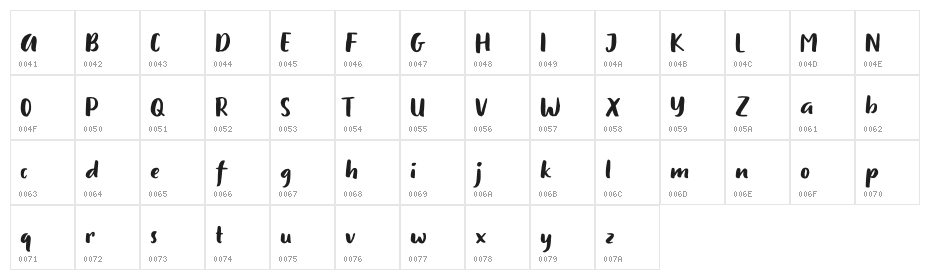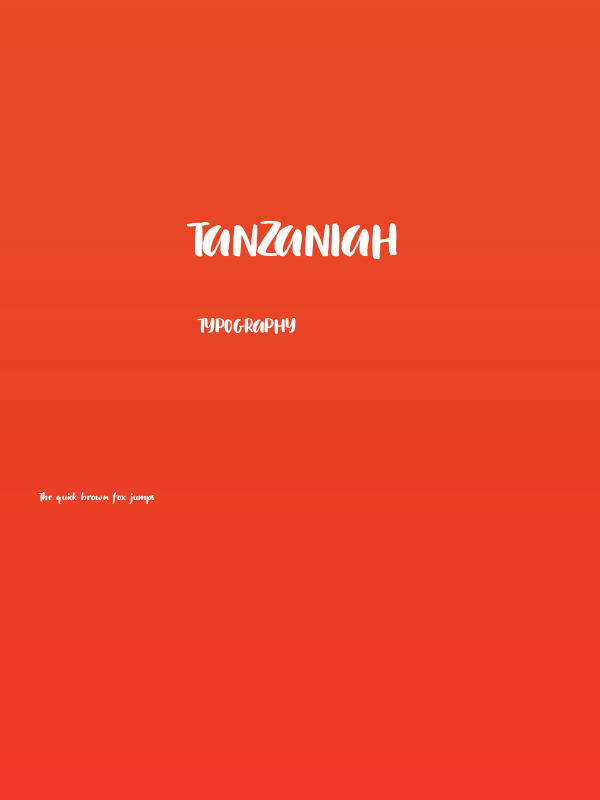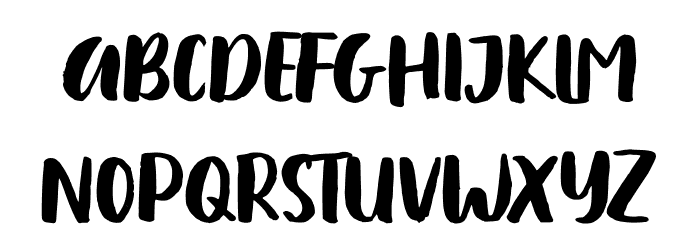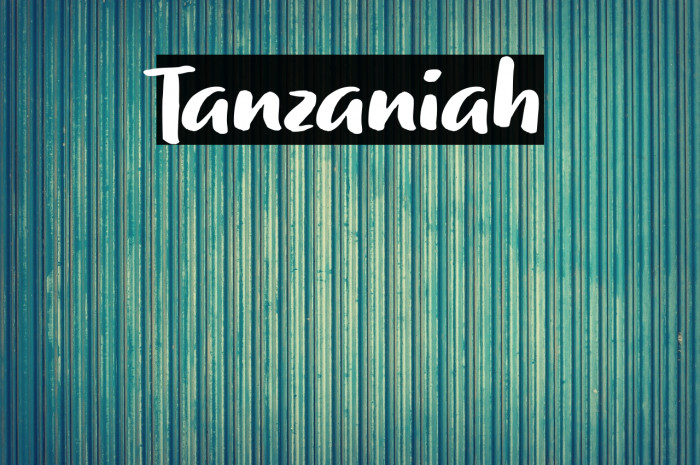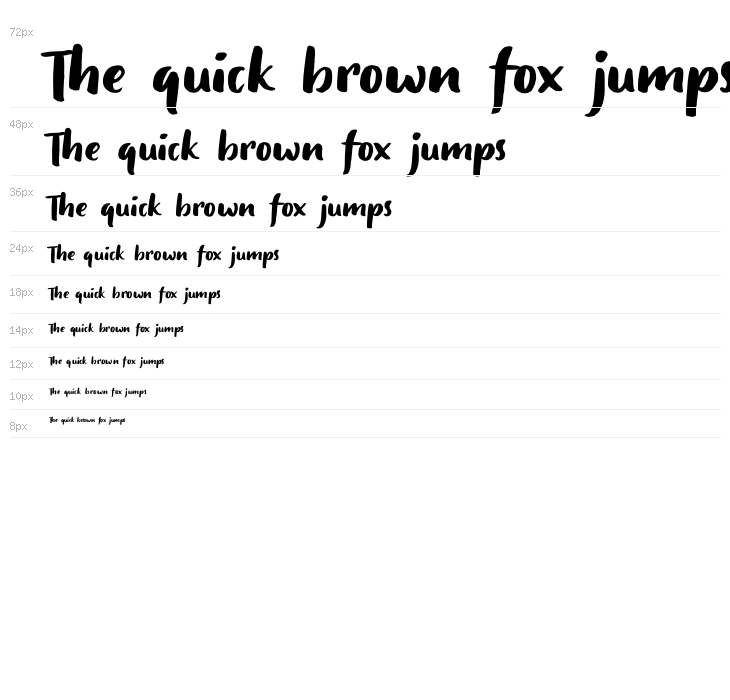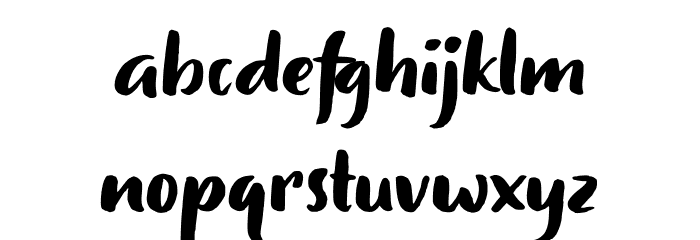
Tanzaniah Font
Tanzaniah Description
This font features a bold and expressive style with a handwritten appearance. The characters are crafted with a brush-like texture, giving them a dynamic and energetic feel. The uppercase and lowercase letters maintain a consistent flow, with slightly irregular strokes that add a personal touch. The font's playful nature is evident in its rounded edges and varying line thickness, which create a sense of movement and spontaneity. This font is ideal for projects that require a lively and informal tone, such as invitations, posters, or branding materials that aim to convey creativity and approachability.
| Proposed Projects | Ideal for invitations, posters, branding materials, and creative projects. |